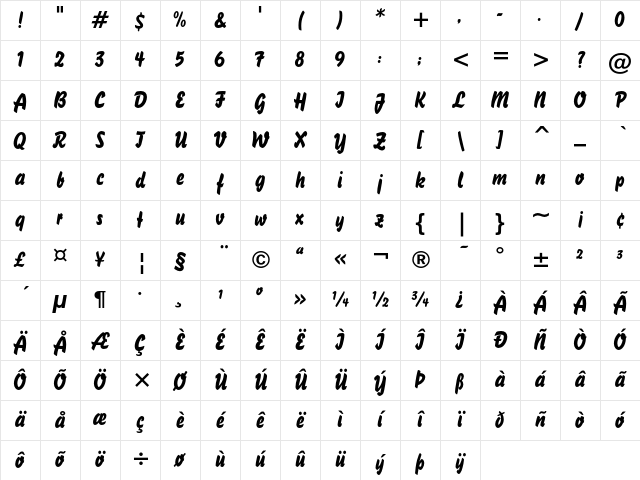
Brush 738 Regular
Design Context for Brush 738
Brush 738 flows with the natural rhythm of handwritten lettering, making it ideal for designs that call for warmth and personal expression.
Font Pairing: Combine Brush 738 with a simple geometric sans for maximum contrast - the tension between flowing curves and clean structure is a classic typographic pairing.
Pro Tip: Use Brush 738 for short runs of text - names, titles, or taglines. Extended body copy in script faces tires the eye quickly.